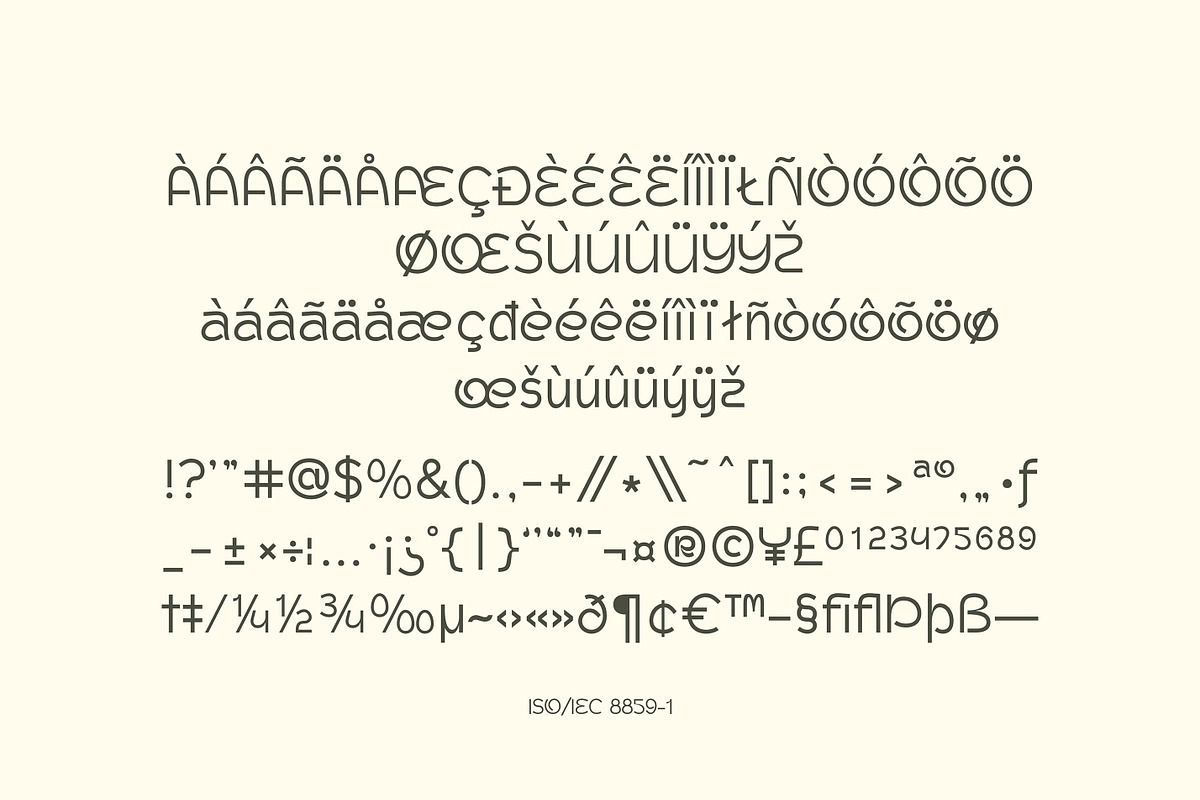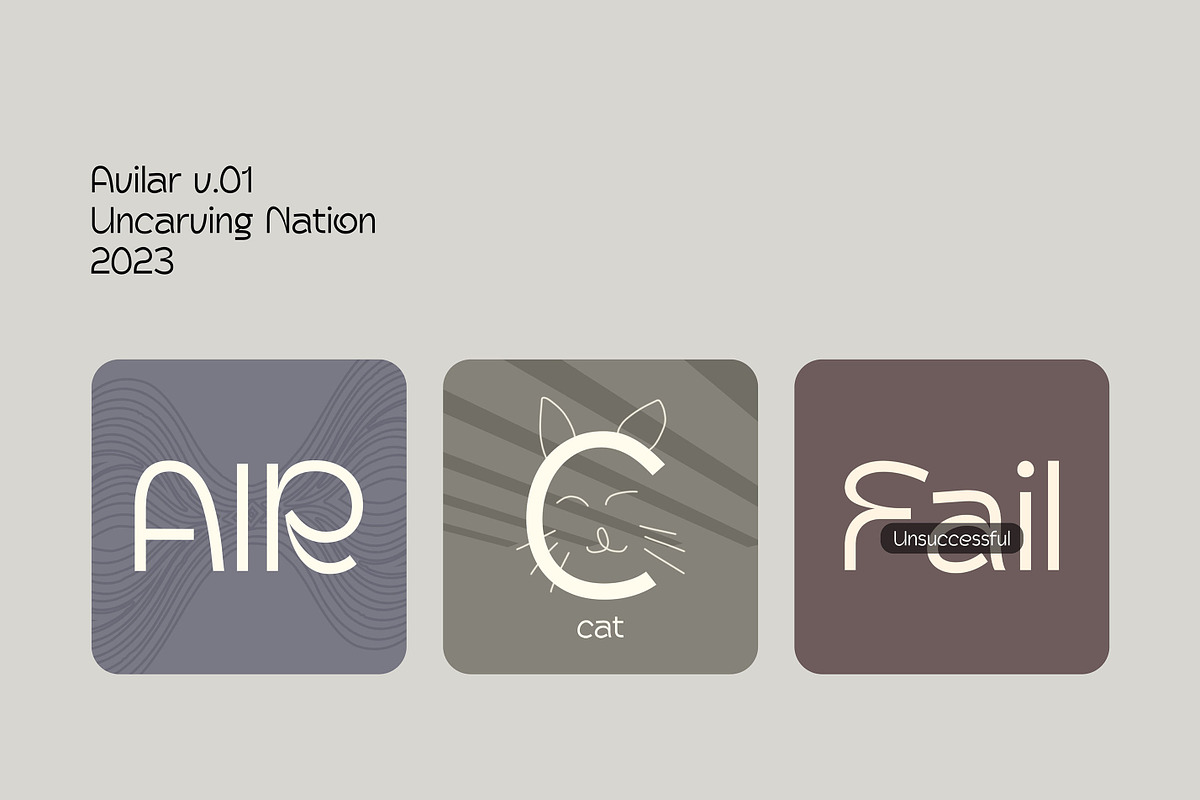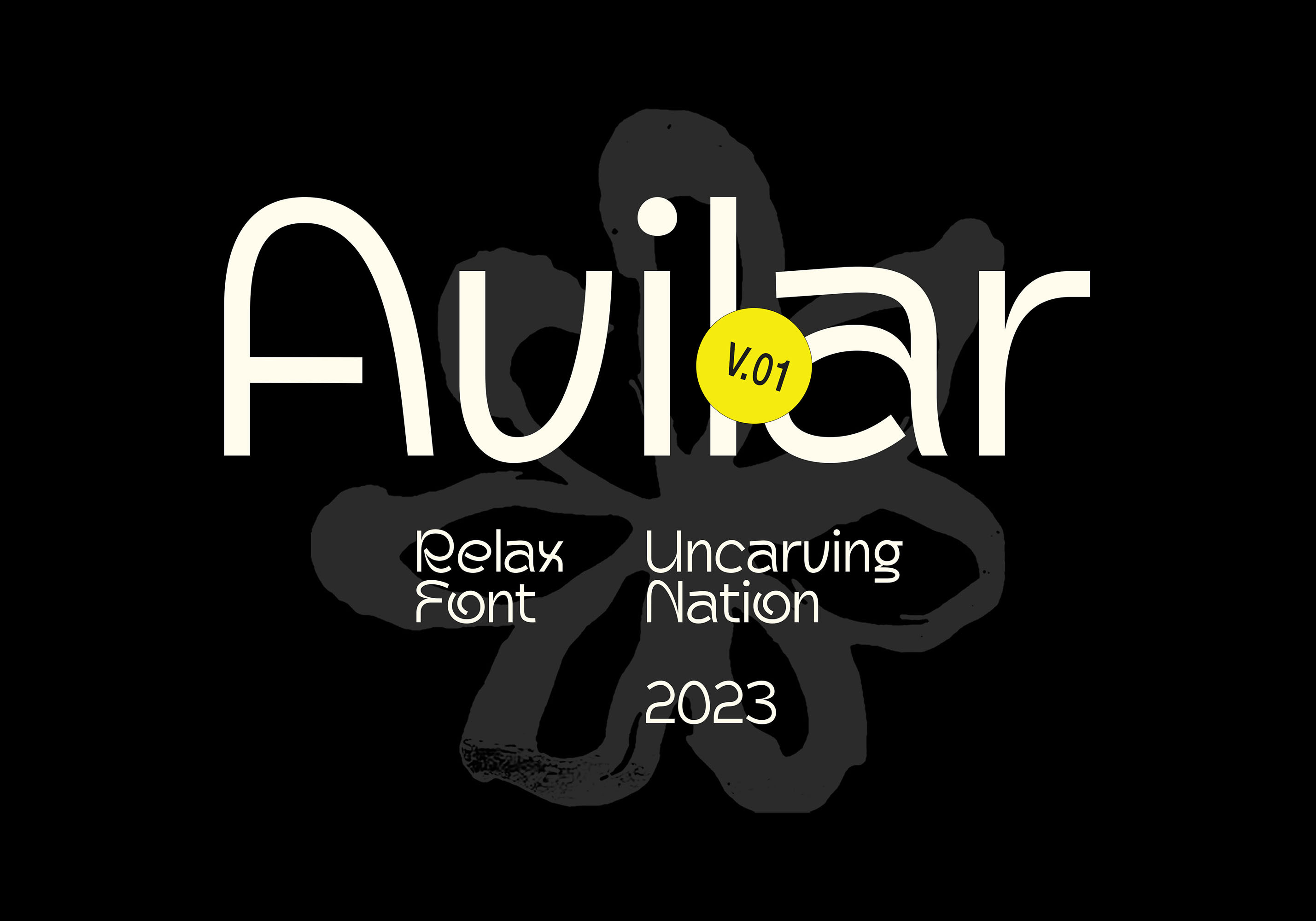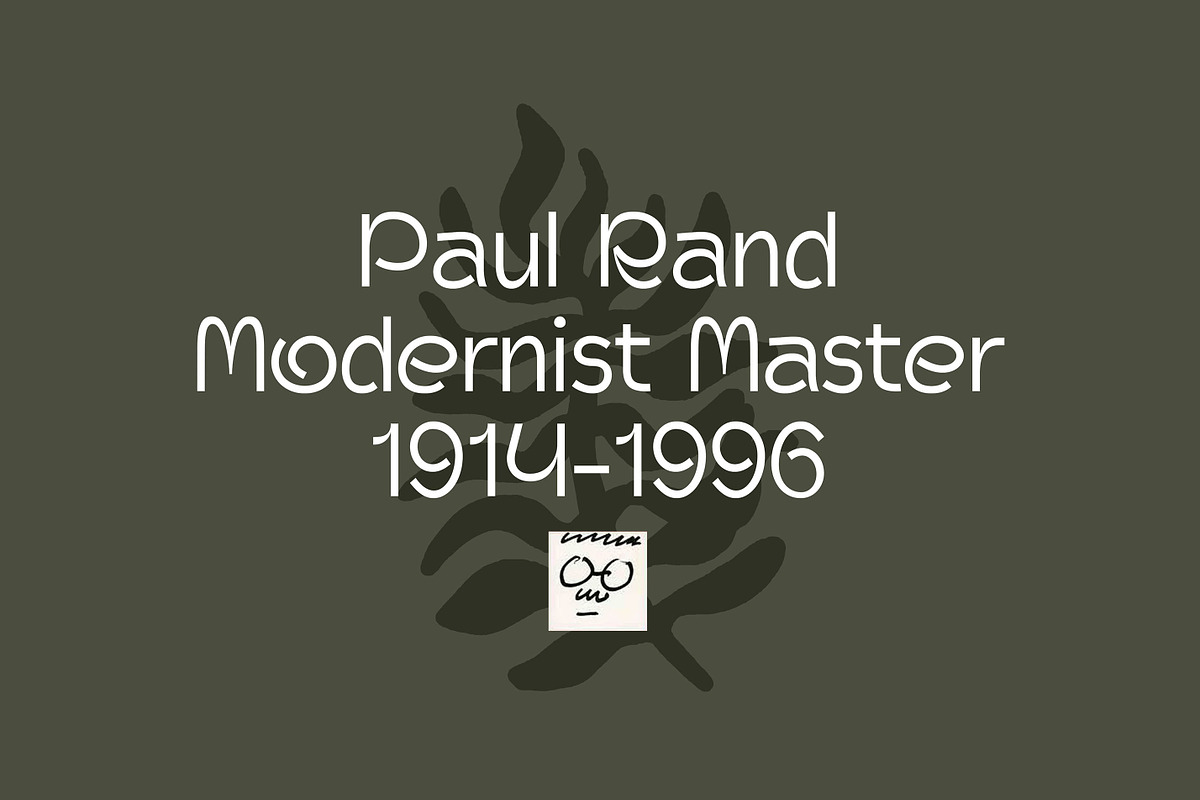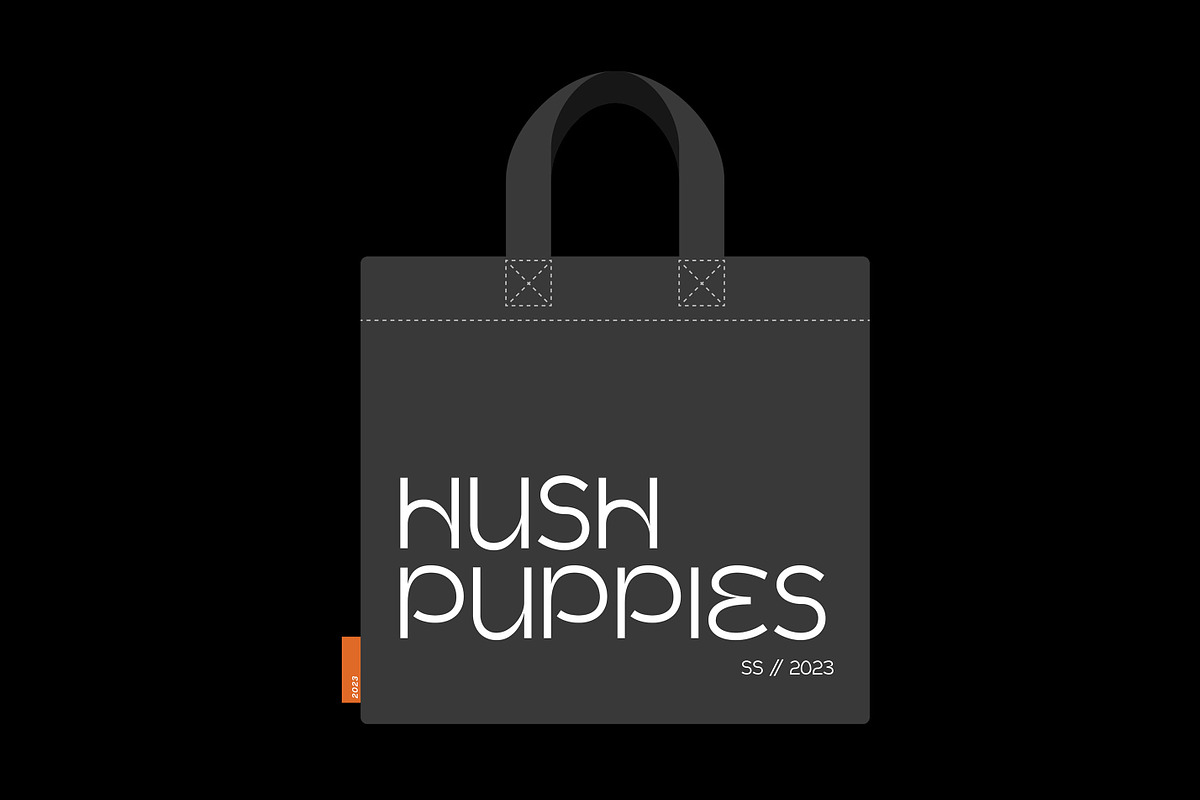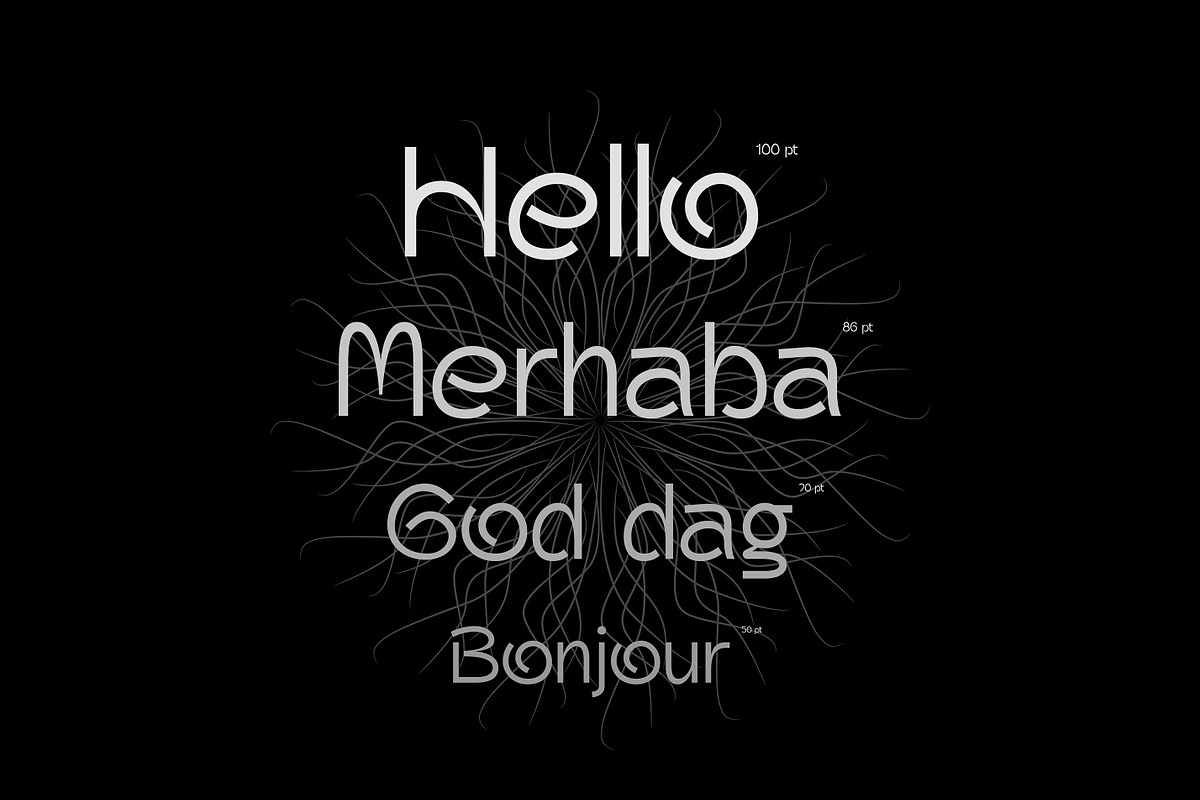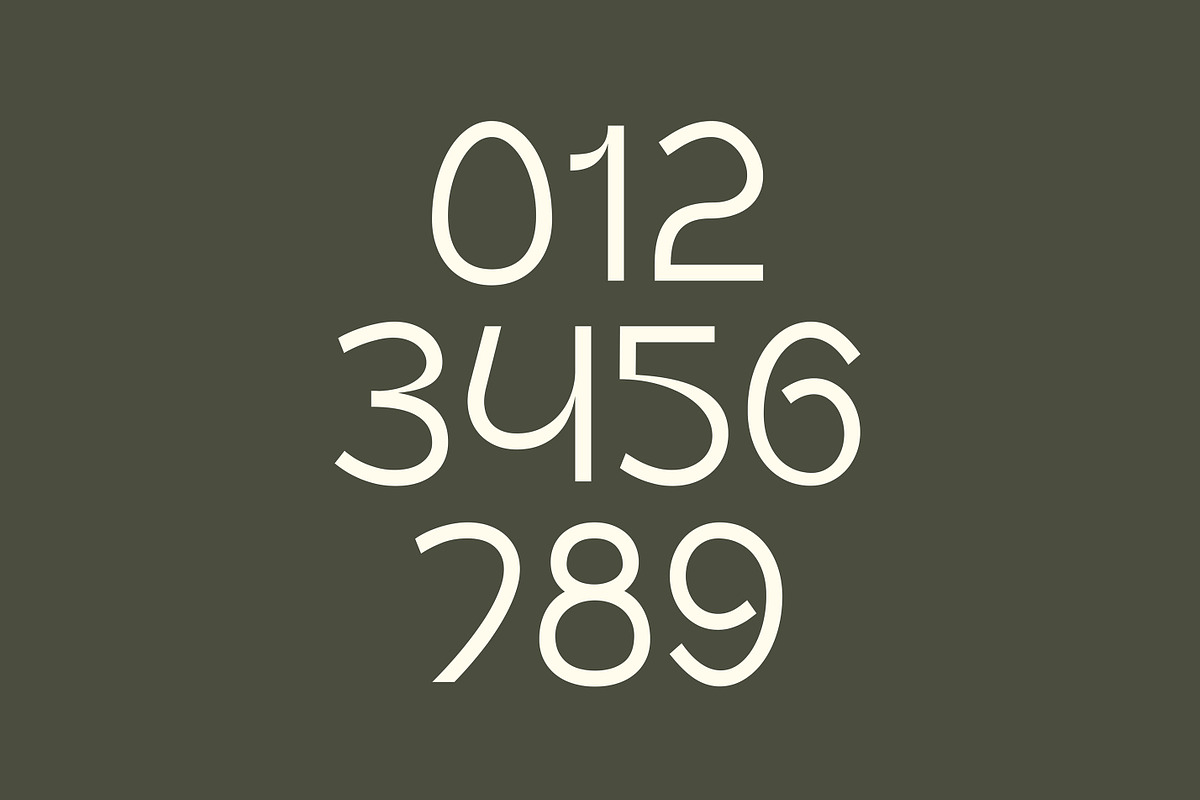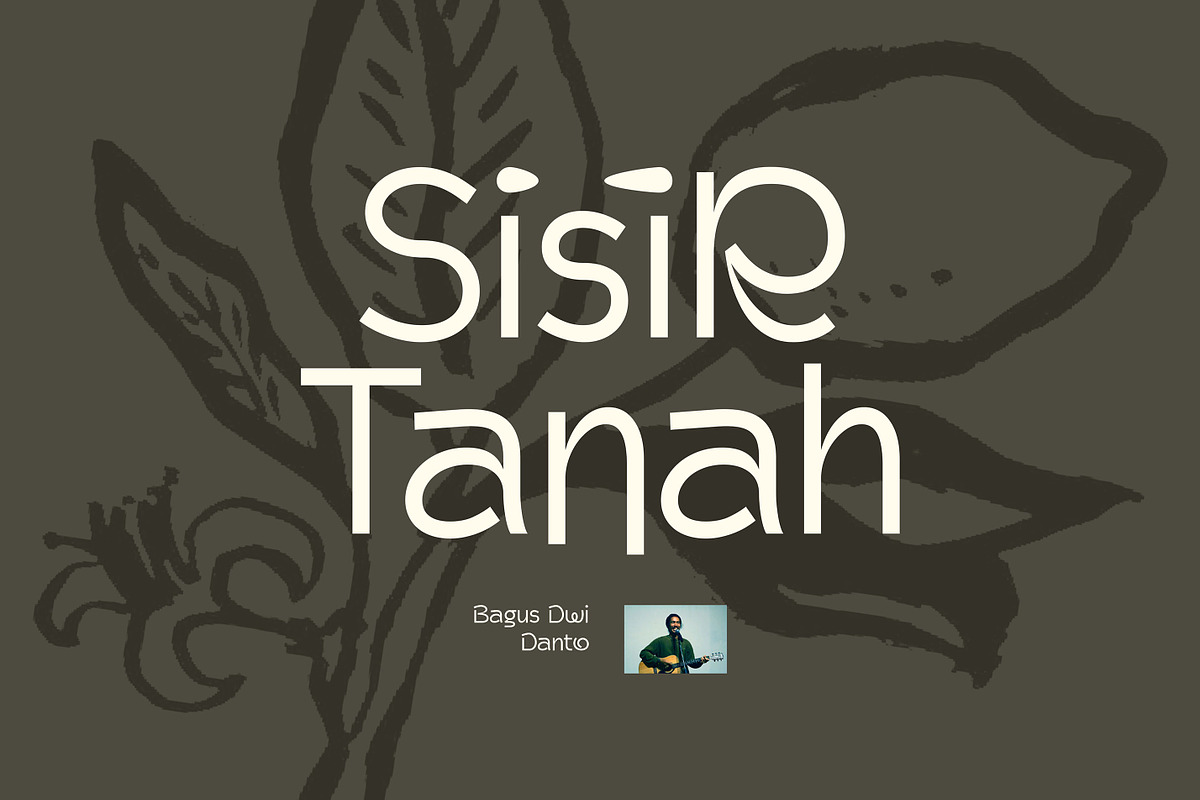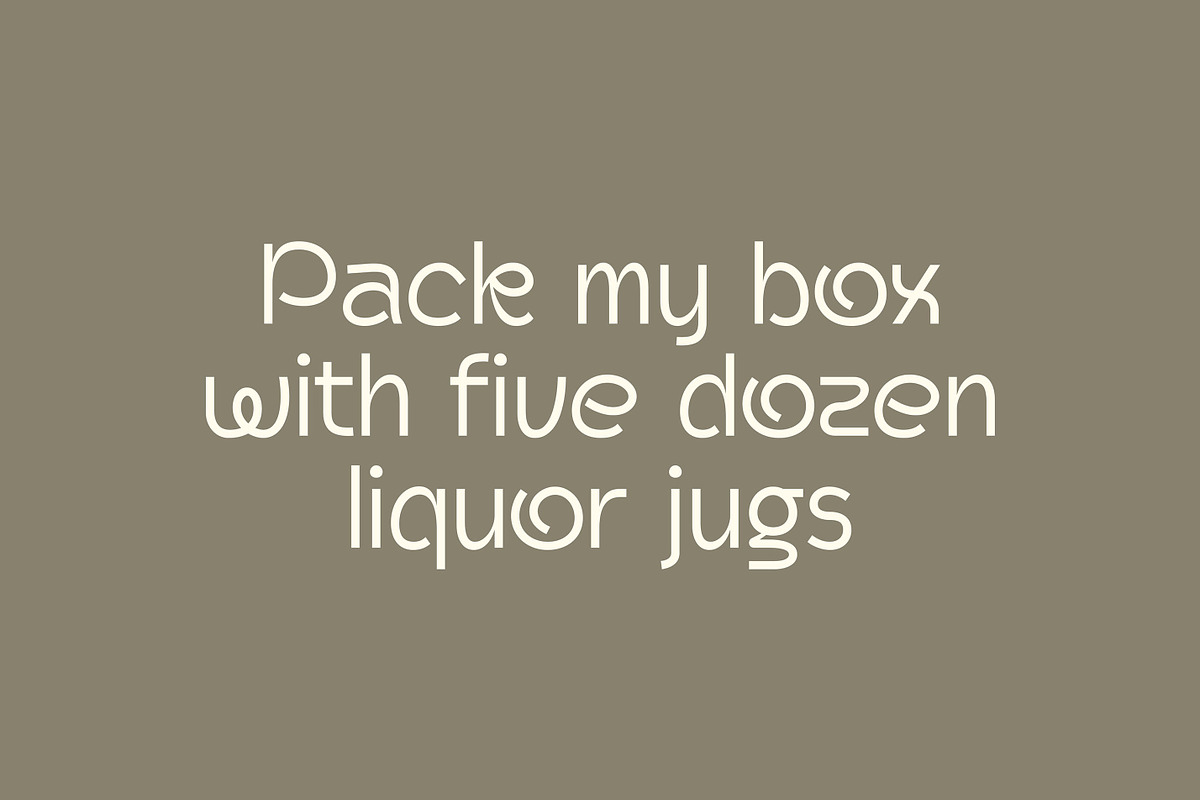
Avilar - Display Font
Avilar is a display typeface with sans serif style. usefull for classic or modern look. Perfectly suitable for creating magazine, editorial designs, social media, and much more.